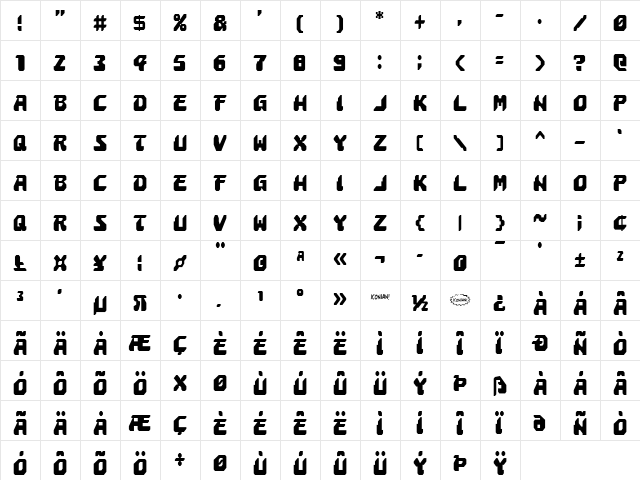
Astropolis Condensed Condensed
Design Context for Astropolis Condensed Typeface
Astropolis Condensed is a composed and adaptable typeface that performs quietly and consistently across a wide range of design contexts. Its narrow stance lets it pack a punch even in space-constrained designs.